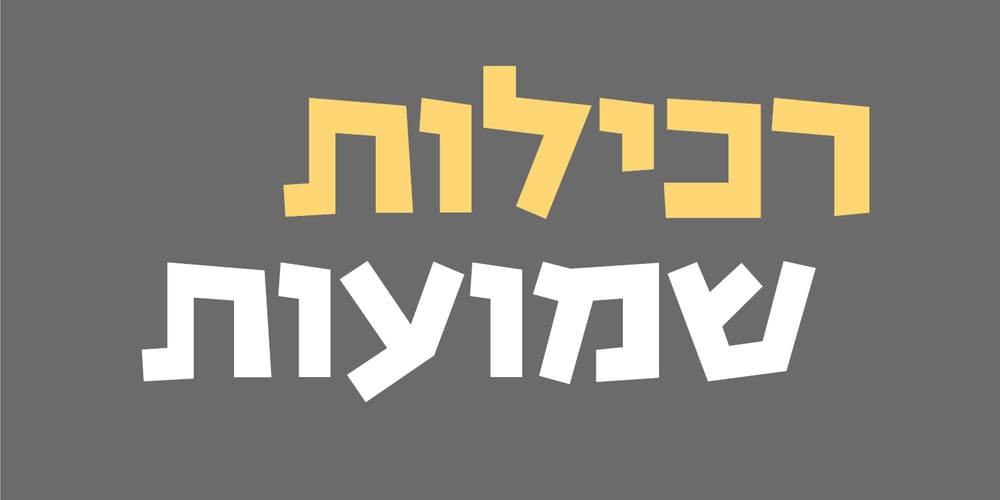
Avney Gad MF Font Family was designed by Gad Ulman and published by Masterfont. Avney Gad MF contains 6 styles and family package options. Geometric forms make this elegant font family a great companion for invitations signs, indoor and outdoor. Useful when you design book jackets, posters etc.